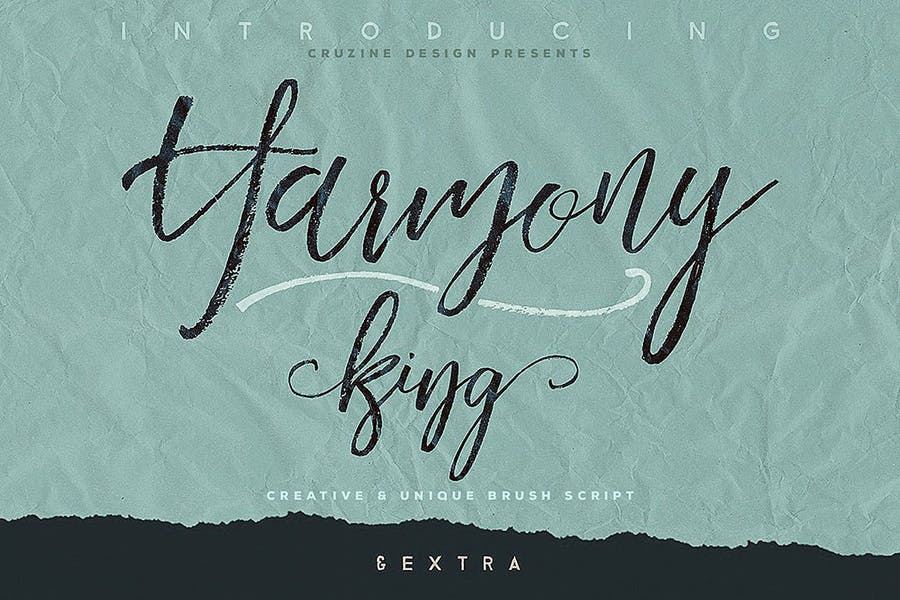
Harmony King - Brush Font
Harmony King - Brush Font is perfect for artistic branding, creative agency logos, handmade craft labels, bohemian wedding invitations, music album covers, art gallery promotions, inspirational quote designs, organic beauty products, creative workshop materials, and expressive poster designs.
Harmony King - Brush Font creates excitement because it embodies the raw energy and artistic freedom of hand-painted lettering with its bold brush strokes and expressive character flow. The font's dynamic texture and organic movement capture the spontaneous creativity of traditional brush calligraphy, making any design appear authentic and emotionally engaging. Its powerful visual impact and artistic flair instantly communicate passion and creativity, creating a strong connection with audiences who appreciate handcrafted artistry and authentic expression.
The Harmony King - Brush Font family includes multiple weights and styles: Regular, Bold, Light, Medium, Rough, Clean, Italic, Condensed, Extended, and Textured versions. Each variant preserves the font's signature brush aesthetic while offering different levels of intensity and refinement for various artistic and commercial applications.
This stunning typeface brings the authenticity of hand-painted artwork into modern design projects with remarkable artistic integrity. Harmony King - Brush Font Free Download provides designers and creative professionals with access to premium brush typography that commands attention and conveys genuine artistic passion. The font's expressive strokes and natural variations make it ideal for brands seeking to establish an authentic, handcrafted identity that stands out in competitive creative markets. Whether you're developing branding for artistic enterprises, creating promotional materials for creative events, designing packaging for artisanal products, or producing content for music and entertainment industries, this font delivers the bold personality that resonates with creative audiences. Its versatile brush aesthetic ensures excellent performance across both digital and print media while maintaining the authentic hand-painted character. The font excels in large display applications where its artistic details can be fully appreciated. Creative professionals value its ability to convey authenticity and artistic skill, essential qualities for building trust with discerning creative clients. The comprehensive character set includes artistic flourishes and international language support, making it suitable for global creative projects and multicultural artistic communities seeking expressive typography that reflects genuine creative passion.